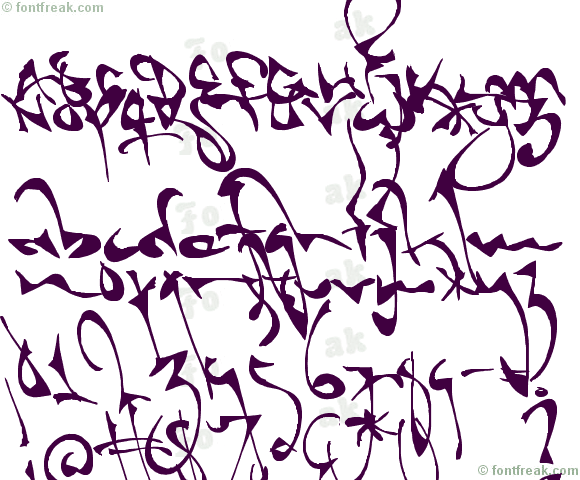
Shortbrush
Shortbrush, designed by Mans Greback, is an expressive script font that exudes a lively, artistic flair. This font is characterized by its dynamic brush strokes, which create a sense of movement and spontaneity. The stroke weight varies, providing a delightful contrast that enhances its visual appeal. The letters feature fluid connections, with elegant curves and playful flourishes that add a decorative touch. The spacing is designed to offer readability while maintaining a casual, handwritten vibe, making it perfect for various creative applications.
Shortbrush is ideal for a range of use cases, including wedding invitations where its whimsical style can evoke romance and joy. It also shines in creating eye-catching movie posters, where the energetic design draws the viewer's attention. Restaurant menus can benefit from its unique character, making the dining experience feel more inviting and personal. Additionally, Shortbrush is a great choice for branding projects, helping small business owners convey a creative and approachable identity in their marketing materials.
The primary audience for Shortbrush includes graphic designers, content creators, and small business owners looking to infuse their projects with a distinctive touch. This font captures the essence of creativity and individuality, appealing to those who wish to stand out in a crowded marketplace.